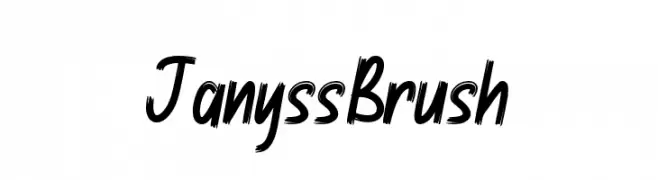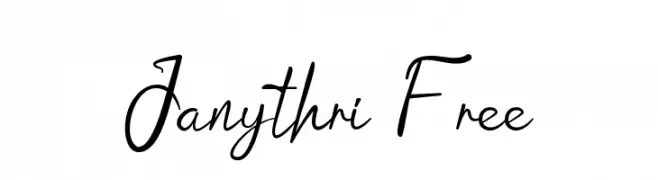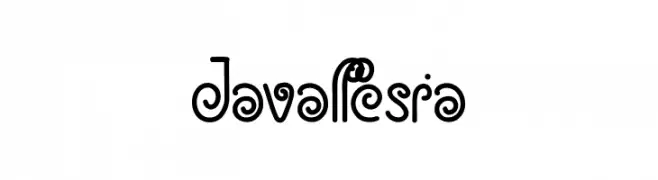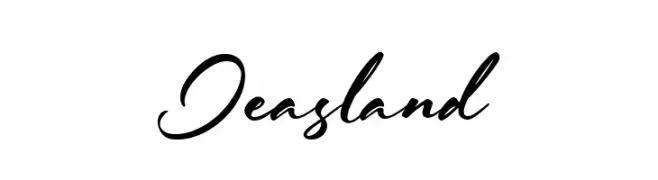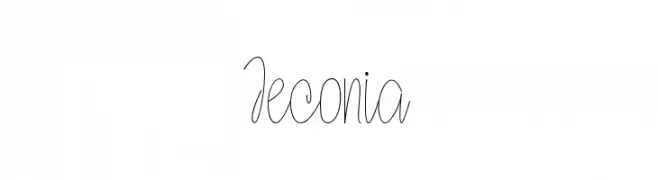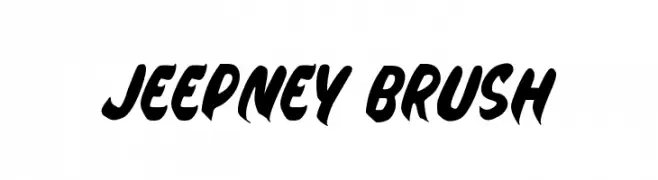
A bold, brush-style font with dynamic and expressive strokes.
A cursive, handwritten-style font with elegant, flowing characters.
A textured, hand-drawn font with a playful and artistic style.
A whimsical, decorative font with intricate loops and curls.
A playful, handwritten font with fluid, organic strokes and a casual feel.
A dynamic and elegant script font with a flowing, cursive style.
A whimsical, handwritten font with tall, narrow letters and a playful style.
A playful, wavy font with a jelly-like texture and bold, rounded characters.